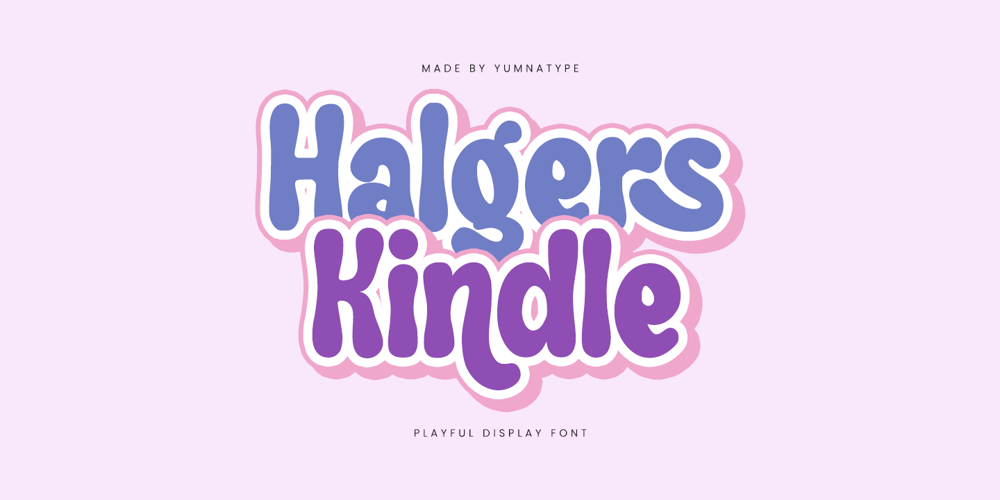
Halgers Kindle Font Family was designed by Donis Miftahudin and published by Yumna Type. Halgers Kindle contains 1 styles and family package options. Halgers Kindle is a charming and eye-catching display font designed to bring a playful touch to your projects. The playful style of Halgers Kindle is evident in its whimsical letterforms and lively appearance. The thick weight of the font adds to its bold presence, ensuring your text is attention-grabbing.With rounded shapes, Halgers Kindle maintains a soft and inviting look. This roundness also adds a touch of friendliness. The low contrast between the strokes of Halgers Kindle provides a consistent appearance. This uniformity enhances the legibility of the font while maintaining its playful essence. In addition, enjoy the features here.Features: Multilingual Supports PUA Encoded Numerals and Punctuations Halgers Kindle fits in headlines, logos, posters, flyers, branding materials, print media, editorial layouts, and many more designs. Find out more ways to use this font by taking a look at the font preview.Thanks for purchasing our fonts. Hopefully, you have a great time using our font. Feel free to contact us anytime for further information or when you have trouble with the font. Thanks a lot and happy designing.